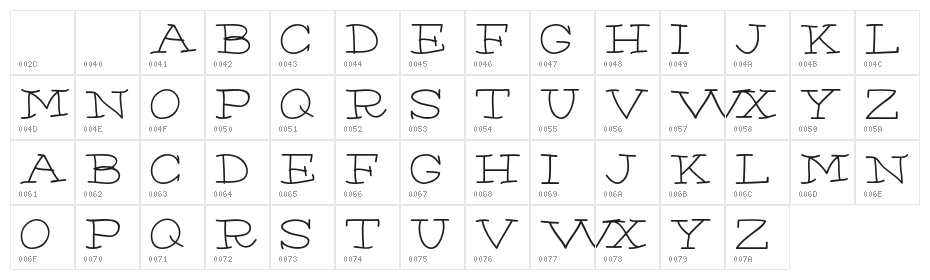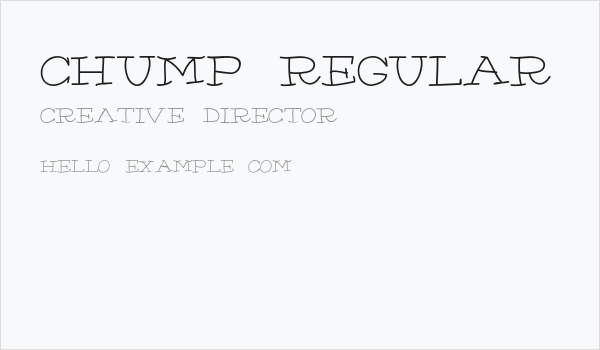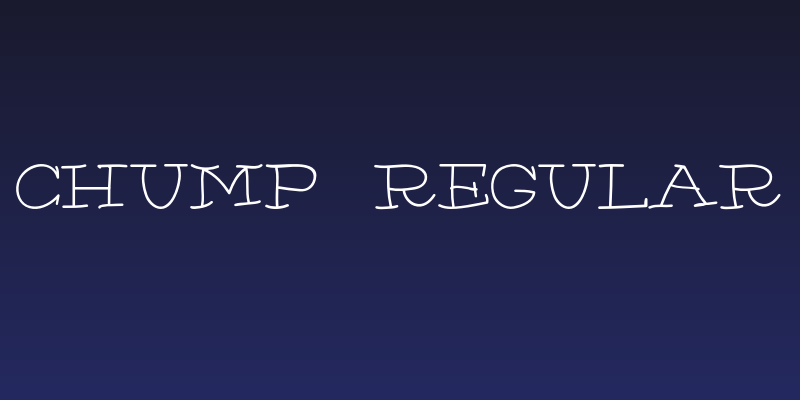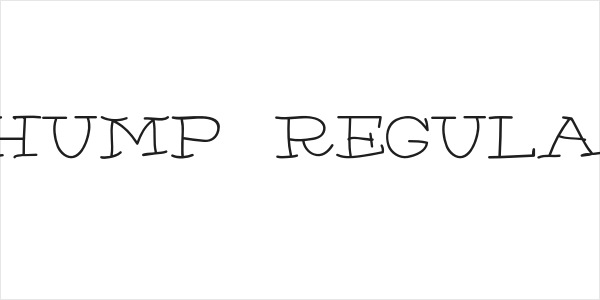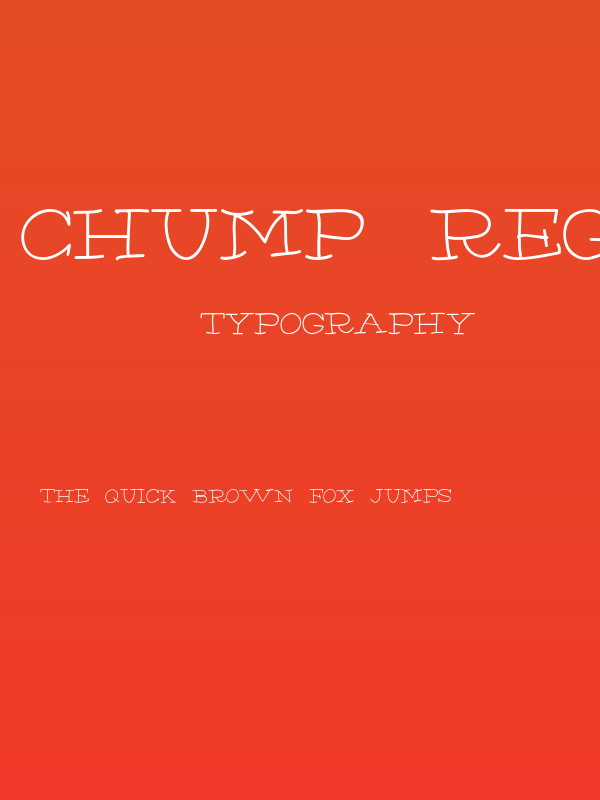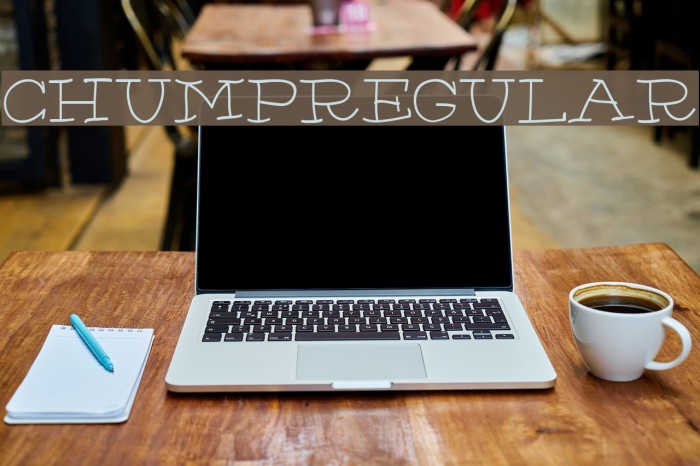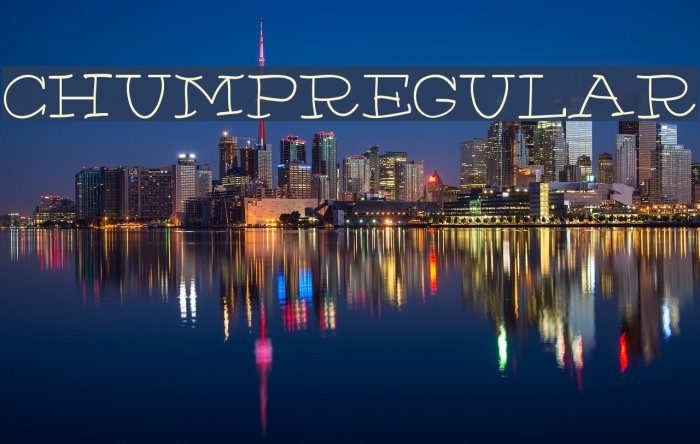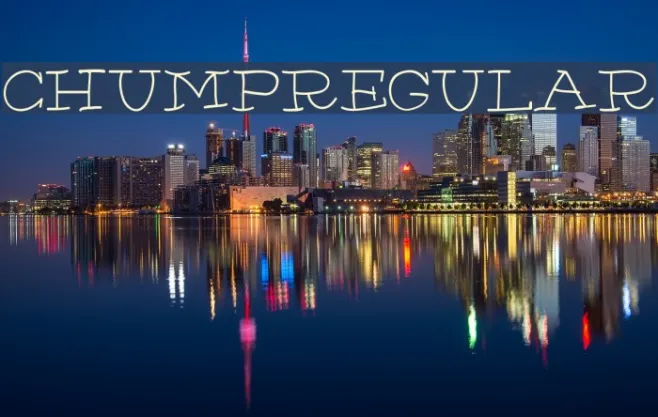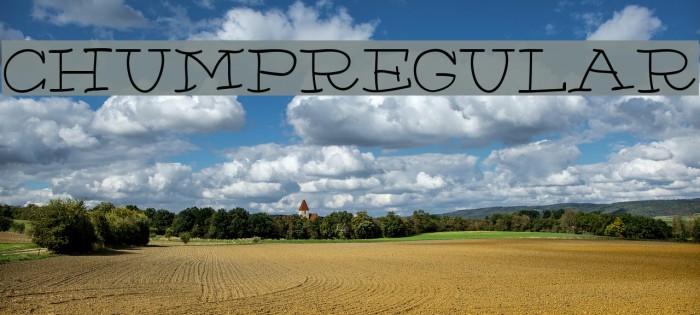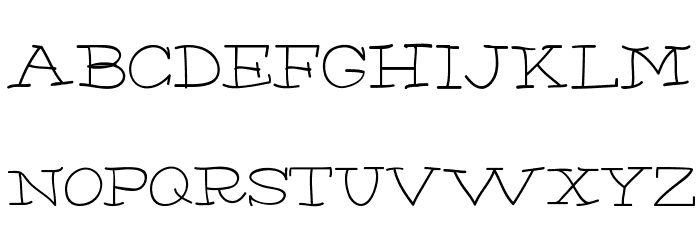
Chump-Regular Font
Chump-Regular Description
This font features a playful and whimsical design, characterized by its irregular and slightly wavy strokes. The letters have a hand-drawn quality, giving them a unique and informal appearance. The uppercase and lowercase letters maintain a consistent style, with exaggerated curves and uneven lines that add to the font's charm. The overall look is casual and friendly, making it suitable for projects that aim to convey a sense of fun and creativity. The font's distinctive style is further enhanced by its moderate contrast in stroke thickness, which adds depth and interest to the characters.
| Overall Style | Whimsical |
| Proposed Projects | Ideal for children's books, greeting cards, playful branding, and creative posters. |